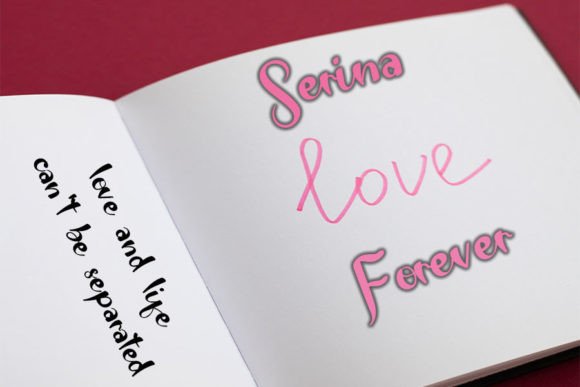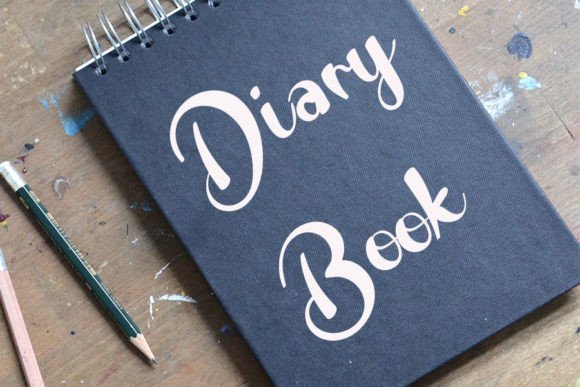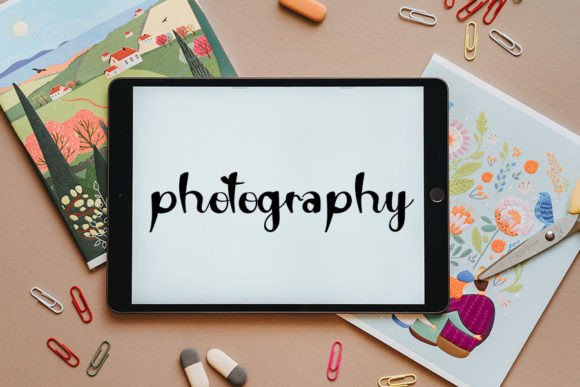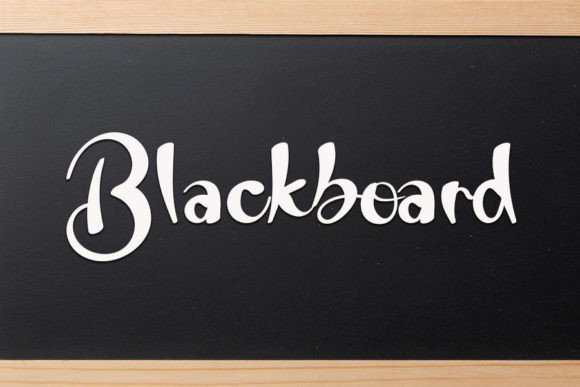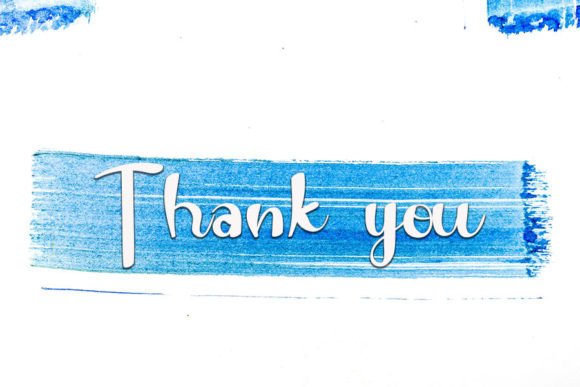
Introducing Anniversary Font: The Perfect Blend of Classy and Contemporary
Are you tired of using the same old fonts in your creative projects? Look no further! Anniversary Font is here to revolutionize the way you approach typography. This friendly handwritten font is carefully designed to become a true favorite among designers and crafters. With its classy calligraphic influences and contemporary feel, Anniversary Font is the perfect addition to any project.
The Story Behind Anniversary Font
Anniversary Font is more than just a font – it’s a statement. Its creators aimed to design a font that would be both elegant and approachable, making it suitable for a wide range of applications. Whether you’re working on a wedding invitation, a branding project, or a DIY craft, Anniversary Font is sure to make your work stand out.
What Makes Anniversary Font Special?
- Classy Calligraphic Influences: Anniversary Font boasts beautiful calligraphic elements, giving it a sophisticated and refined feel.
- Contemporary and Fresh: Despite its classic influences, Anniversary Font feels modern and fresh, making it perfect for designers and crafters who want to stay on-trend.
- Handwritten with Love: The font’s handwritten nature gives it a personal touch, making it ideal for projects that require a bit of warmth and personality.
- Versatile: Anniversary Font can be used in a variety of contexts, from formal events to casual DIY projects.
How to Use Anniversary Font in Your Projects
Anniversary Font is incredibly versatile, making it suitable for a wide range of applications. Here are a few ideas to get you started:
- Wedding Invitations: Add a touch of elegance to your wedding invitations with Anniversary Font.
- Branding Projects: Use Anniversary Font to create a unique and memorable brand identity.
- DIY Crafts: Add a personal touch to your DIY crafts, such as handmade cards, gift tags, and more.
- Social Media Graphics: Use Anniversary Font to create eye-catching social media graphics that will make your followers take notice.
Tips and Tricks for Working with Anniversary Font
To get the most out of Anniversary Font, here are a few tips and tricks to keep in mind:
- Experiment with Sizes: Anniversary Font looks great in a variety of sizes, so don’t be afraid to experiment to find the perfect fit for your project.
- Pair it with Other Fonts: Try pairing Anniversary Font with other fonts to create a unique and interesting contrast.
- Use it in Combination with Images: Anniversary Font looks great when used in combination with images, so try incorporating it into your designs to add an extra layer of depth.
Anniversary Font is a game-changer for designers and crafters. With its perfect blend of classy calligraphic influences and contemporary freshness, it’s the perfect addition to any project. Whether you’re working on a wedding invitation, a branding project, or a DIY craft, Anniversary Font is sure to make your work stand out. So why wait? Give Anniversary Font a try today and see the difference it can make!